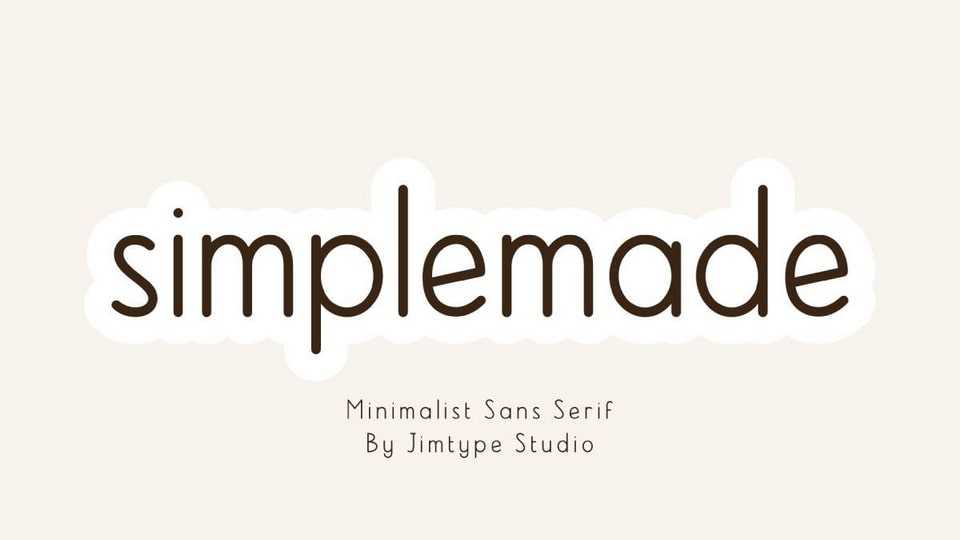
Simplemade Font › Fontesk – Download Grátis
Download Simplemade font, the epitome of simplicity and versatility in the world of fonts! This monospace, sans-serif font is designed for those who appreciate the beauty of clean lines and farmhouse aesthetics.